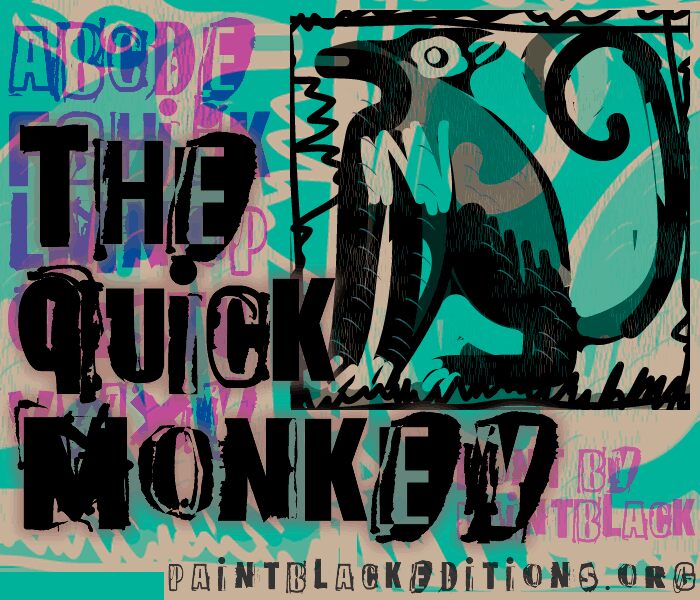
The Quick Monkey by paintblack is a free distorted display font with rough cutout lettering and an abrasive handmade finish. Its uneven capitals shift between broad solid shapes and narrower battered forms. Ragged edges, deep breaks and blunt silhouettes make every letter feel separately damaged.
Alternative music and streetwear audiences will find it useful for posters, merchandise and event graphics. It can also suit horror covers and skate branding, with the torn lettering becoming part of the artwork.